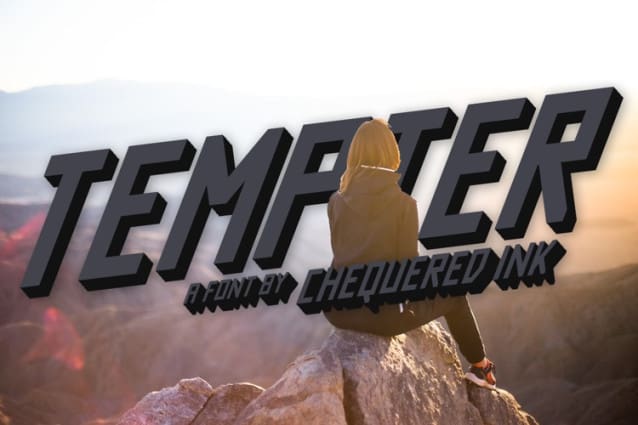
Tempter Font
Tempter Font is a modern techno sans serif font. Its futuristic and minimalist style makes it incredibly suitable for all your projects that need a sci-fi touch.